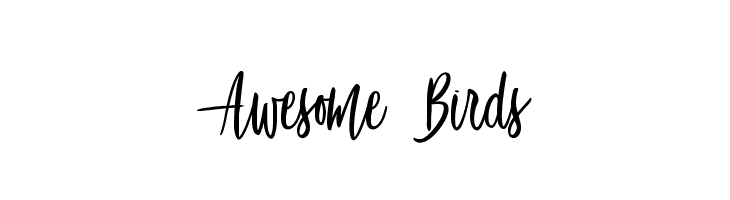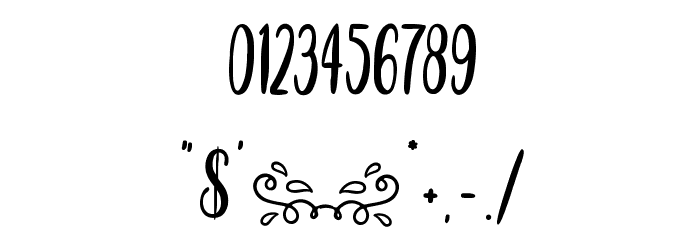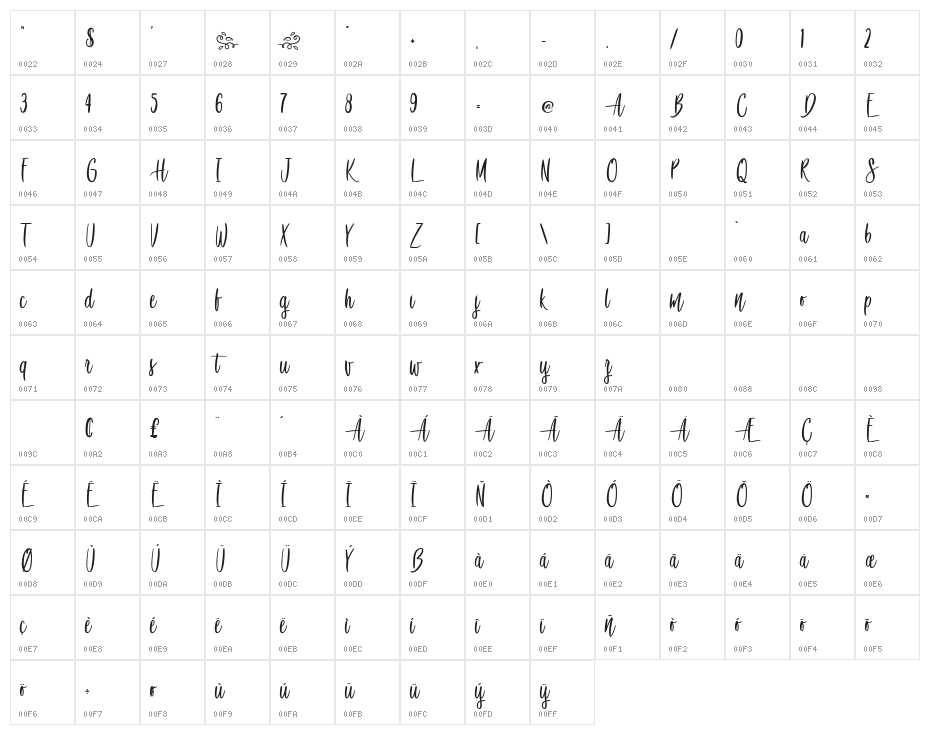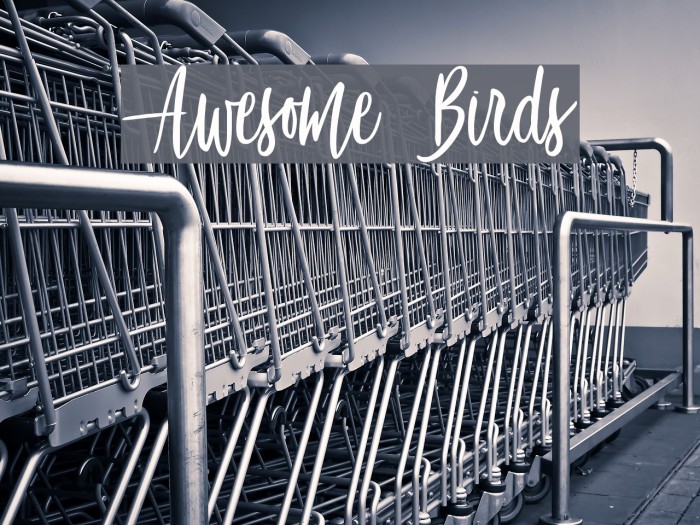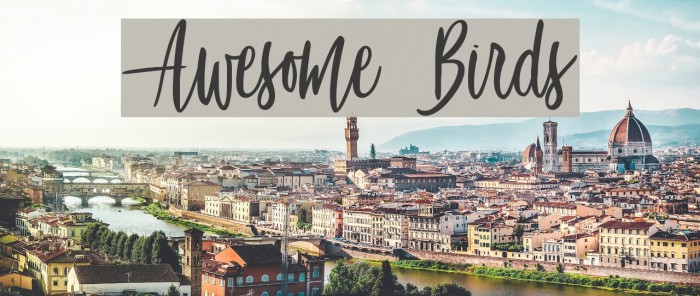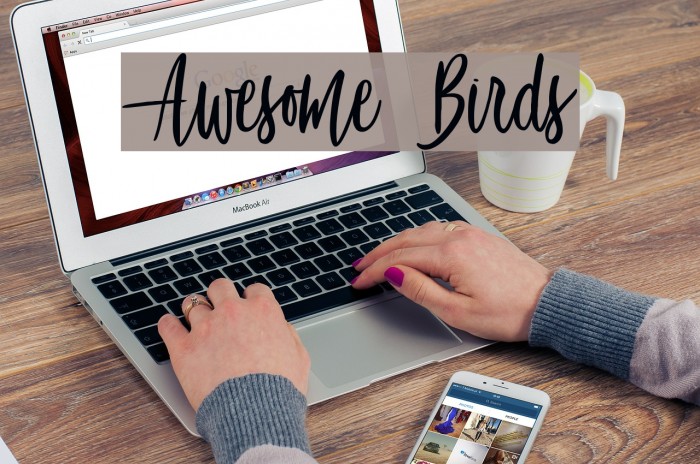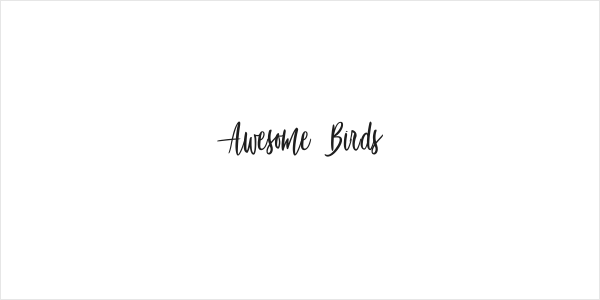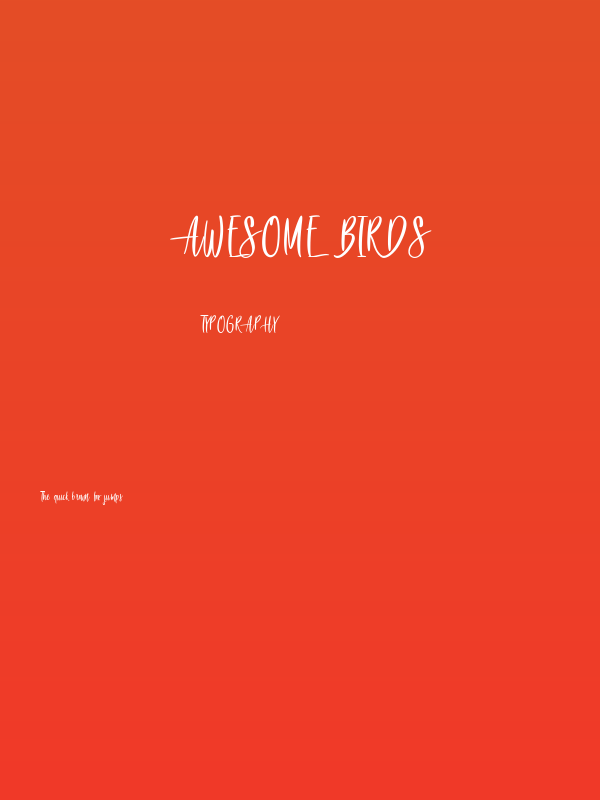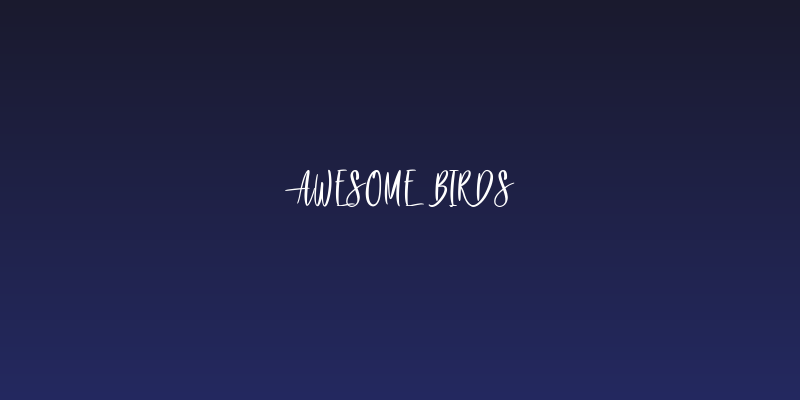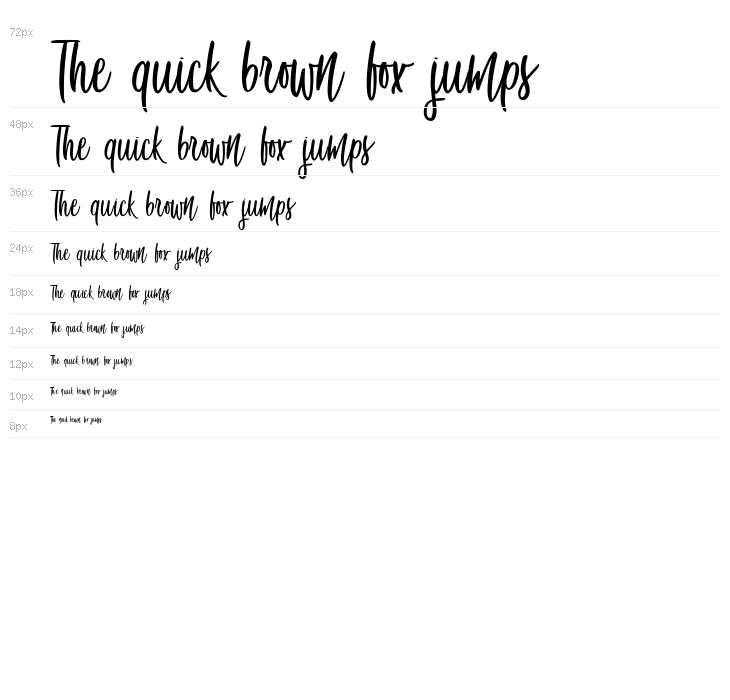
Awesome Birds Font
Awesome Birds Description
This font features a playful and whimsical handwritten style with a touch of elegance. The uppercase letters are tall and slightly narrow, with a consistent stroke width that gives them a clean and modern appearance. The lowercase letters are more fluid and dynamic, showcasing a natural flow that mimics authentic handwriting. The numbers are well-balanced, maintaining the same playful aesthetic. Special characters add a decorative flair, enhancing the font's versatility. Overall, this font exudes a friendly and approachable vibe, making it suitable for a variety of creative projects.
| Proposed Projects | Ideal for greeting cards, invitations, branding, and social media graphics. |